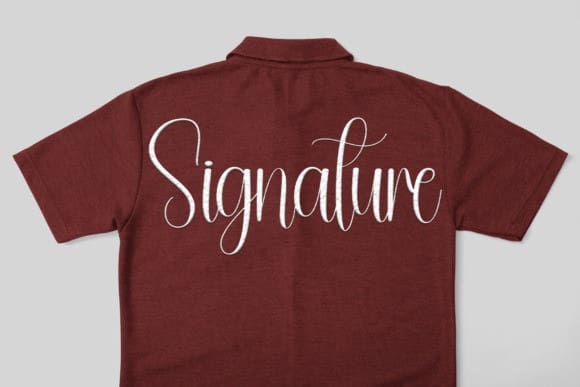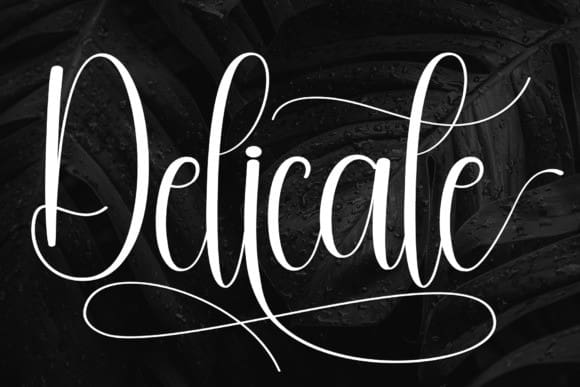
Delicate Script Typeface
Delicate Script Font is a sweet and friendly handwritten display font. Cute and fun, this font is ideal for writing wedding invitations, cards, or any other design that might need a fun touch!